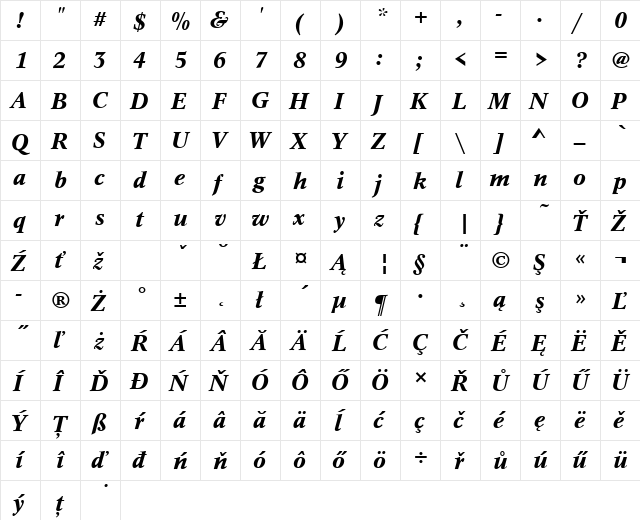
ContusTEEMed Italic
Design Context for ContusTEEMed Typeface
ContusTEEMed takes a measured approach to typography — its balanced proportions and neutral character make it a reliable workhorse for both digital and print work. The slanted form adds forward momentum and visual energy.
Pro Tip: Try ContusTEEMed for annotation and caption copy alongside an upright companion — the contrast in angle creates a dynamic but ordered typographic system.